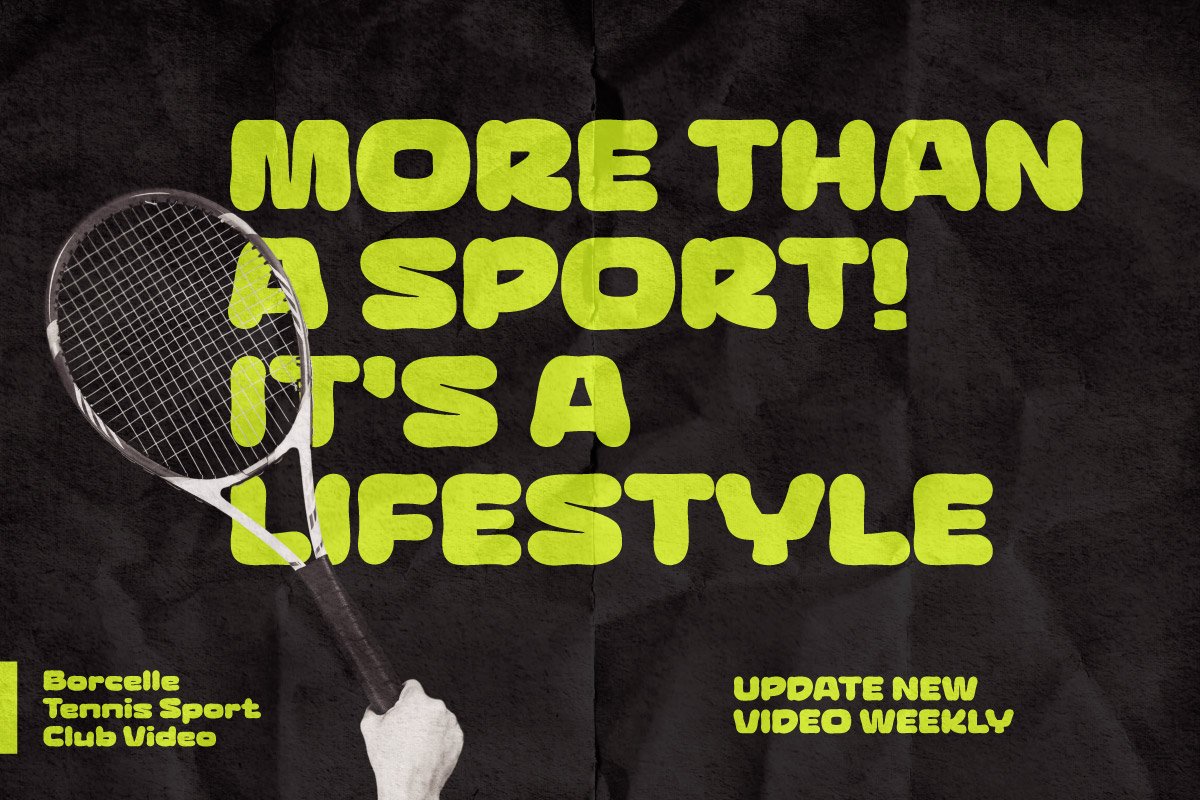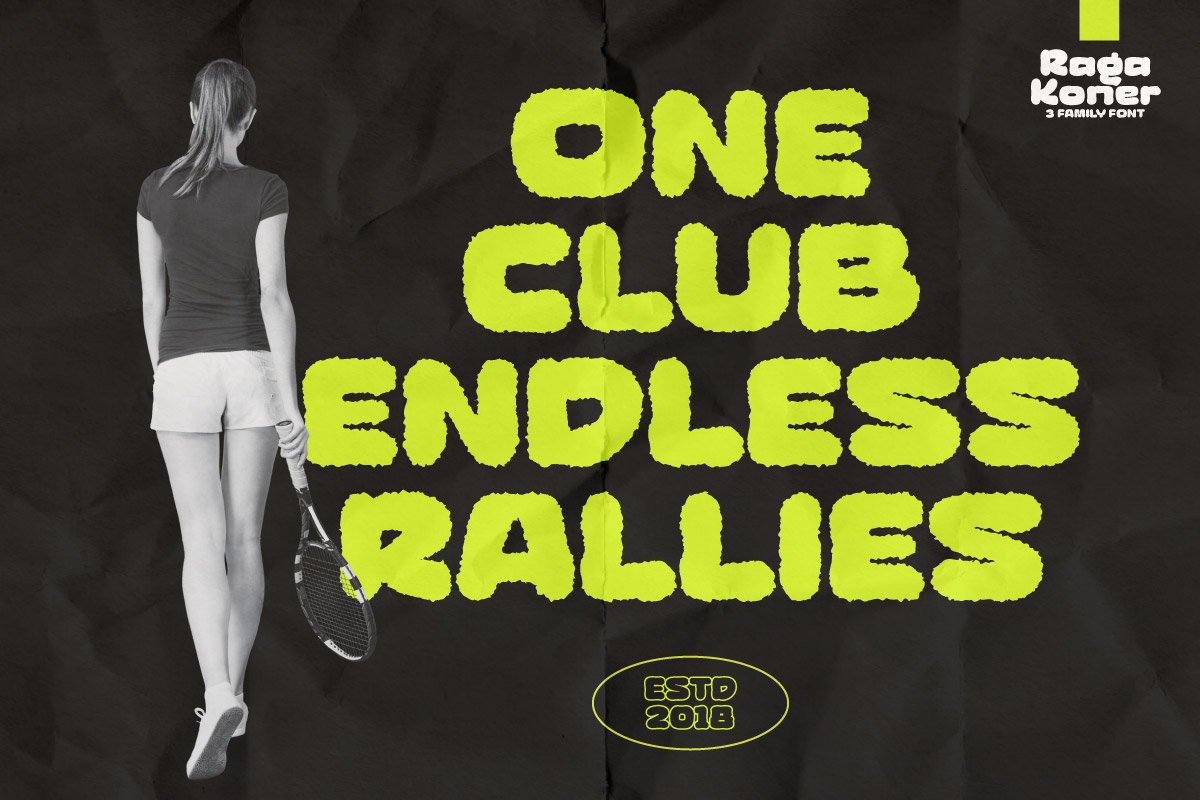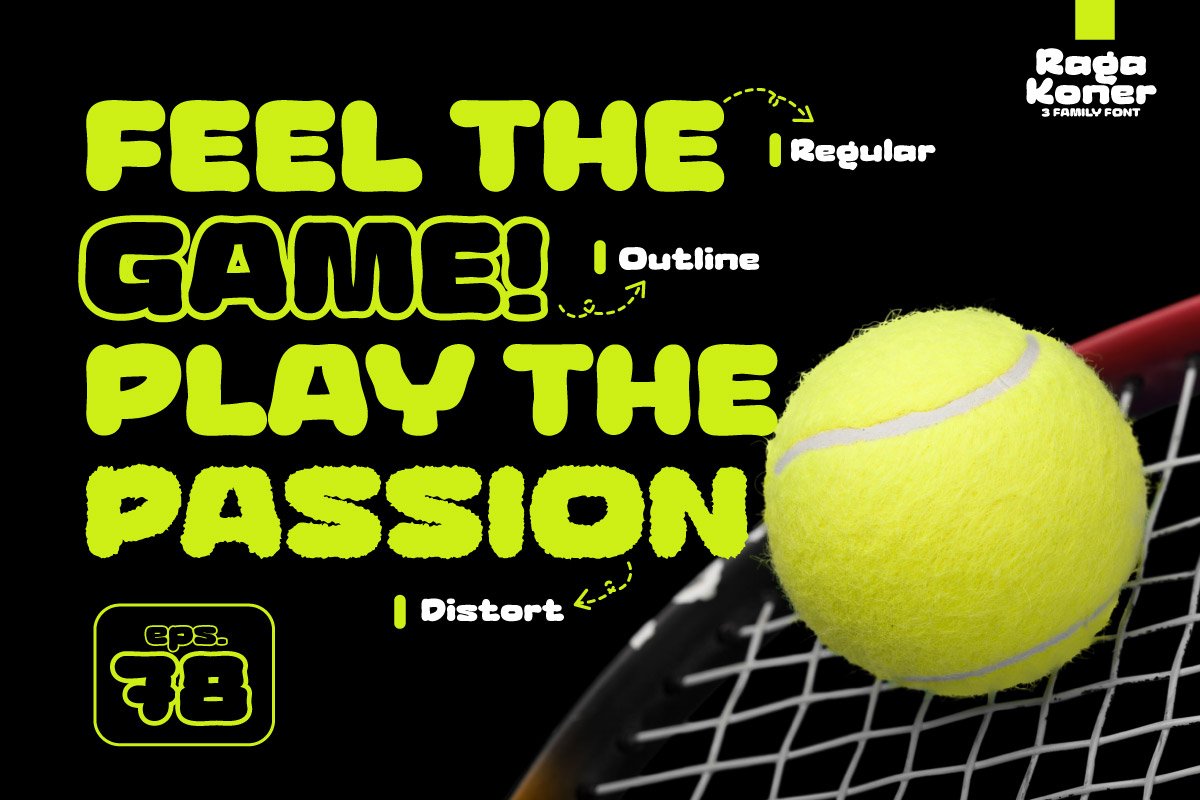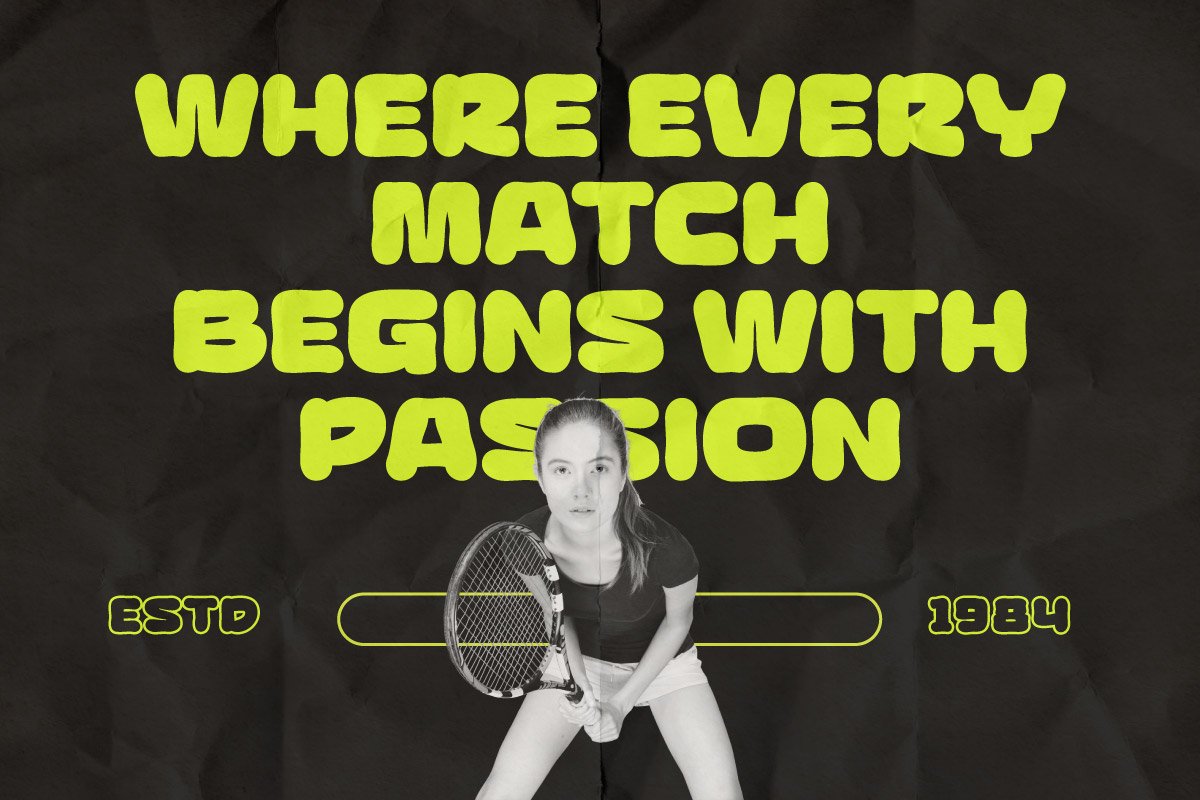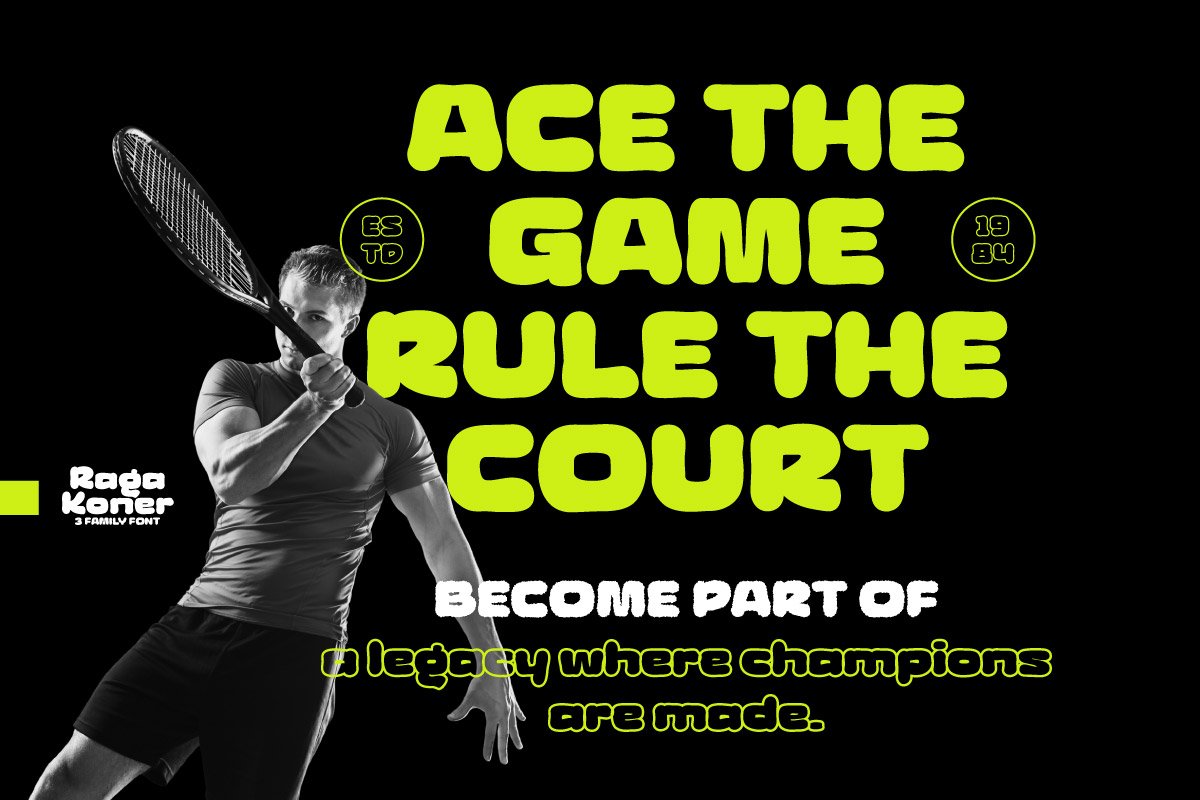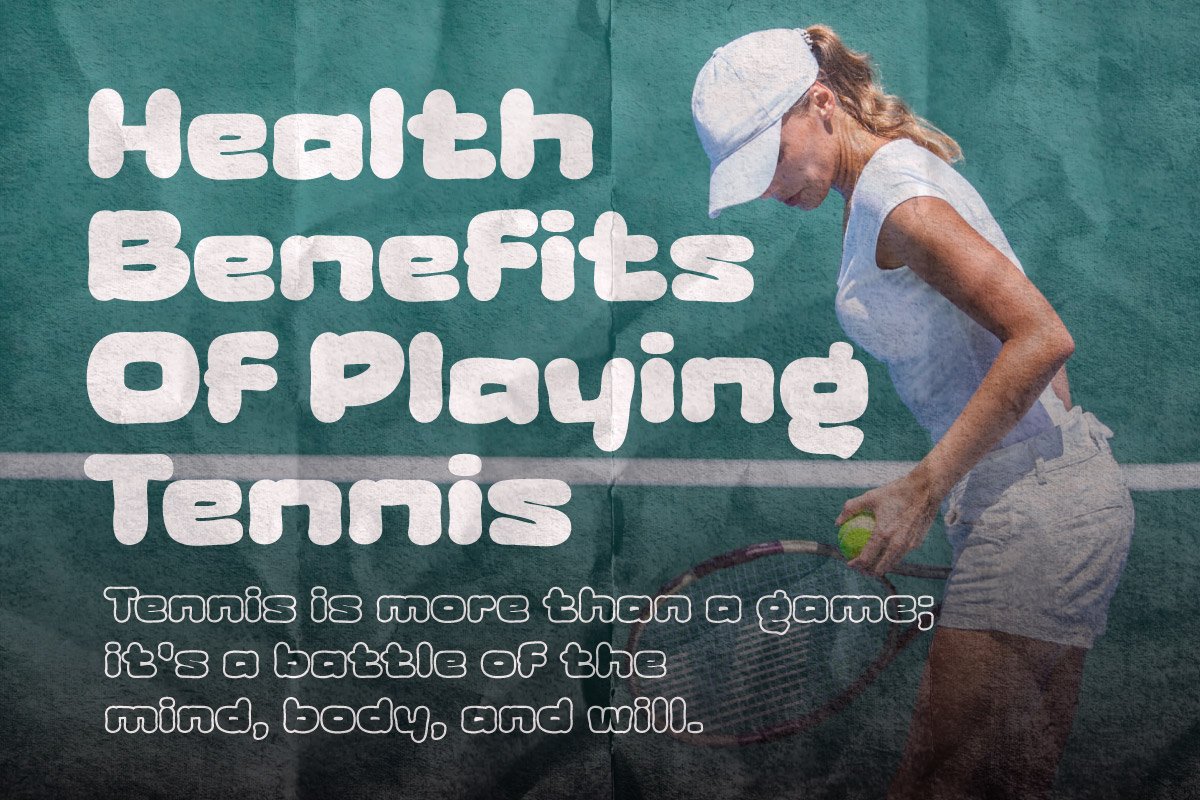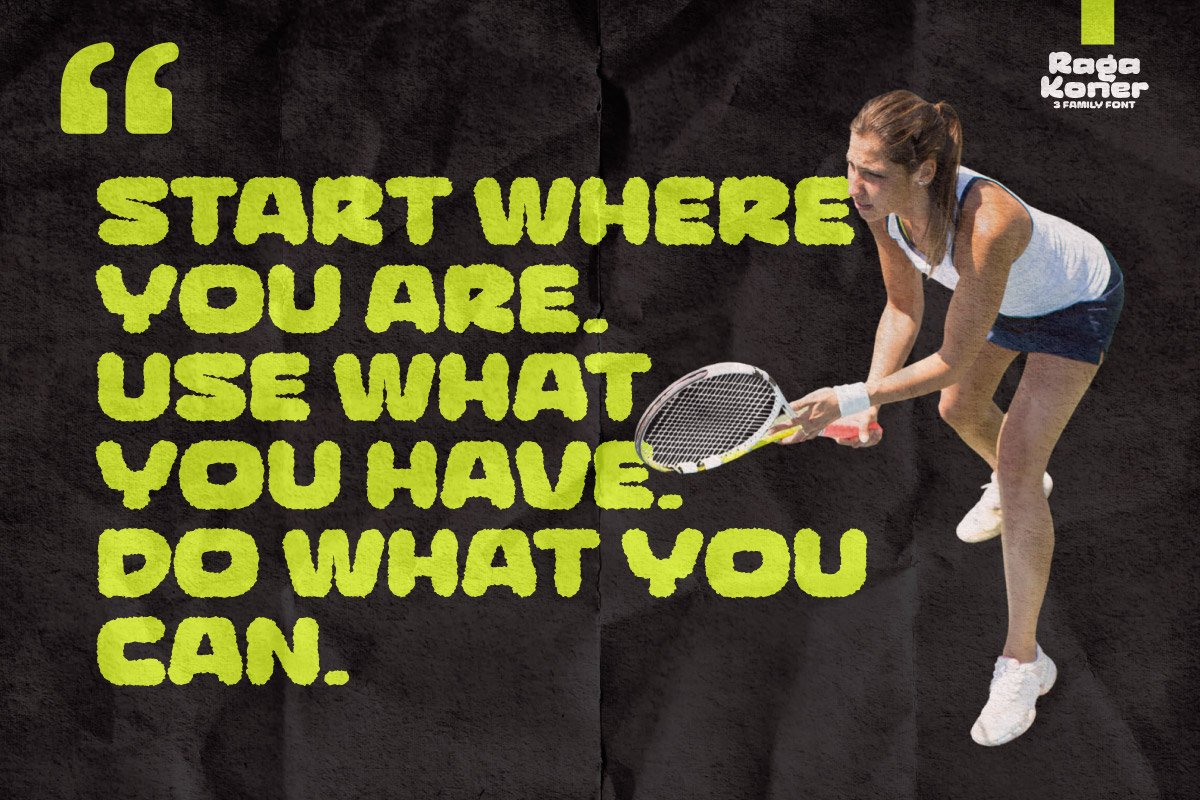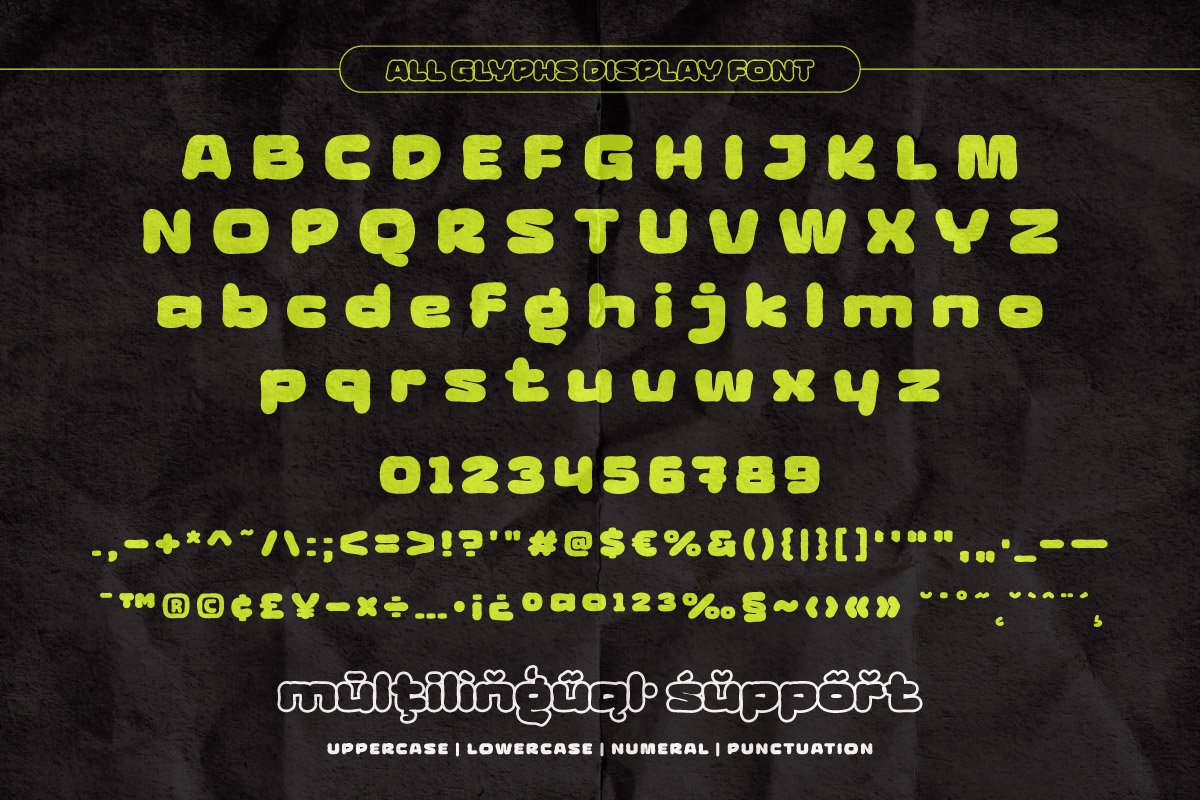
Raga Koner – Display Sport Font
Raga Koner is a bold display font inspired by the energy and spirit of tennis. With its rounded, heavy letterforms and playful proportions, it captures the dynamic motion and excitement found on the court. Each curve and shape radiates strength and warmth, making it perfect for designs that need to stand out and make a statement.
Ideal for sports posters, team jerseys, merchandise, event branding, and sports-themed social media graphics, Raga Koner offers three styles—Regular, Outline, and Distort—to give you the creative flexibility to match your project’s mood and energy.
More than just a sports font, Raga Koner is a symbol of passion and drive. It adds impact to your visuals, strengthens your message, and inspires excitement in your audience. With Raga Koner, every word becomes a highlight and every design comes alive.